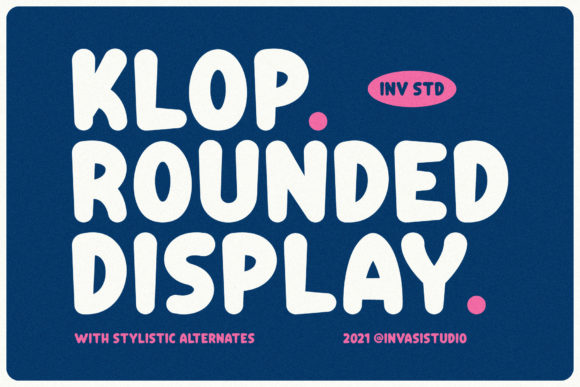
Feast your eyes on Klop Font, the ultimate culinary companion for your design journey! This playful display font, crafted by invasistudio, oozes charm and warmth, making it the perfect choice for creating mouthwatering designs that leave a lasting impression.
With its innocent nature and effortless readability, Klop Font transforms your words into delectable treats, inviting your audience to savor every morsel of your culinary creations. It's the perfect font for crafting tantalizing menus, eye-catching food packaging, and captivating restaurant branding that ignite the senses and make taste buds dance.
Whether you're a seasoned chef, a passionate home cook, or a food enthusiast looking to showcase your culinary adventures, Klop Font is your secret ingredient for success. Its versatility extends beyond the kitchen, making it an excellent choice for craft projects, digital designs, presentations, and greeting cards. Its cheerful nature brings a touch of whimsy and delight to any project, leaving a lasting impression that lingers like the aroma of a perfectly baked pie.
Imagine your designs adorned with the delightful curves and cheerful characters of Klop Font. Your menus and packaging will burst with flavor, enticing customers with a visual feast that promises an unforgettable dining experience. Your digital designs and presentations will come alive with a vibrant personality that captivates audiences, leaving them hungry for more.
So, embark on a culinary adventure with Klop Font as your guide. Let its playful spirit ignite your creativity and transform your designs into mouthwatering masterpieces. With Klop Font, you'll have the perfect recipe for success, leaving your audience savoring every delightful morsel of your design creations.